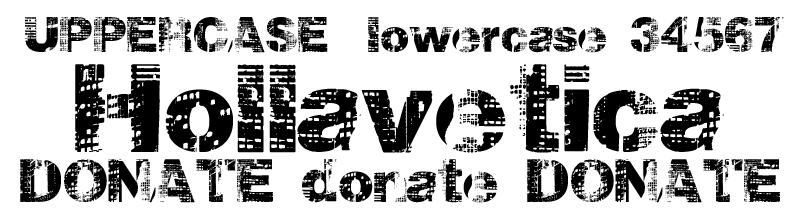
Preview and download Hollavetica Font. Created by Xerographer Fonts in Fancy Eroded styles with Donationware license.
$20 personal use donate today! paypal maxinfeld@hotmail.com contact for commercial use. Hollavetica - city at night - kinda like helvetica but sicka. Add Xerographer on Facebook: www.facebook.com/infeld Holla Holla! |